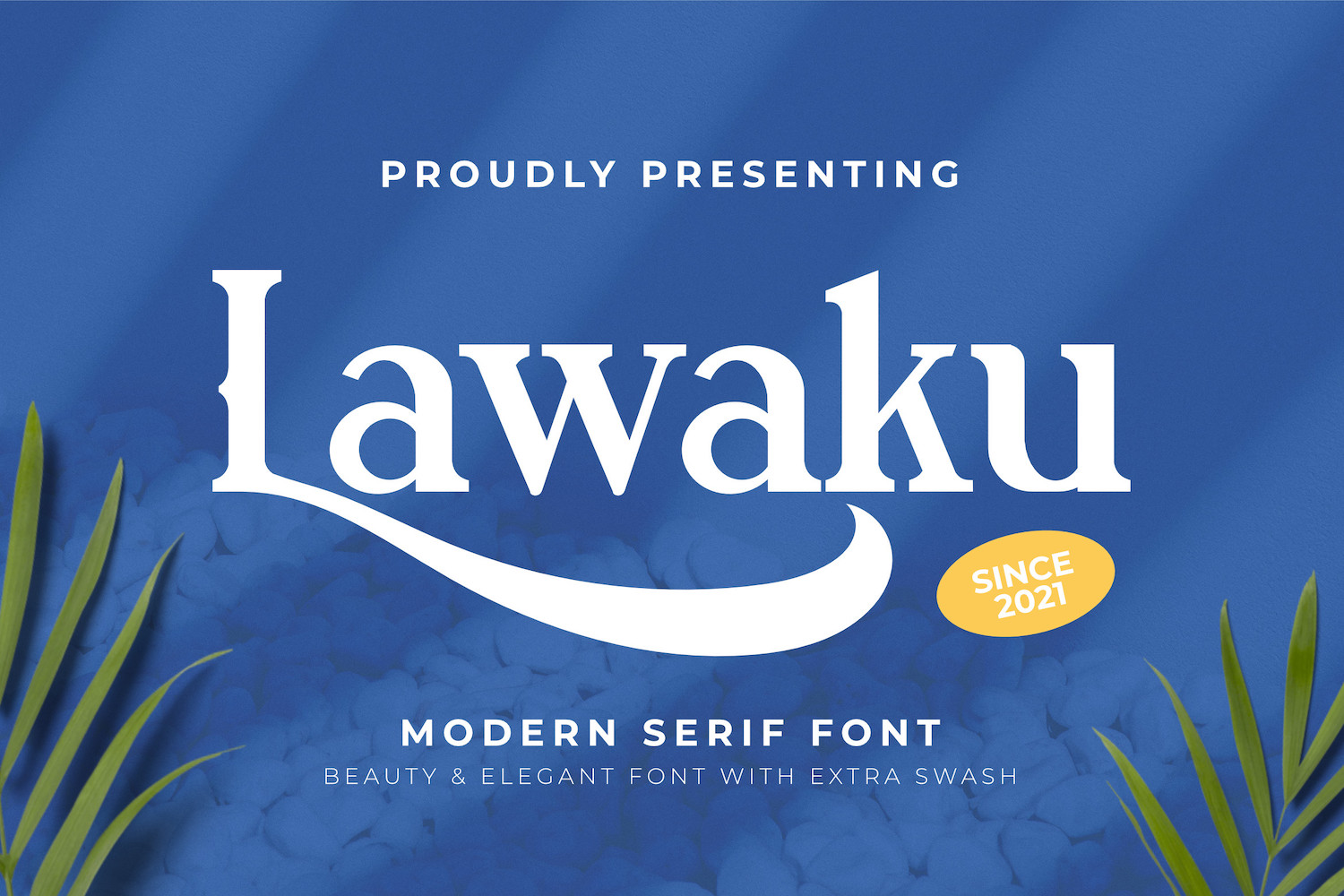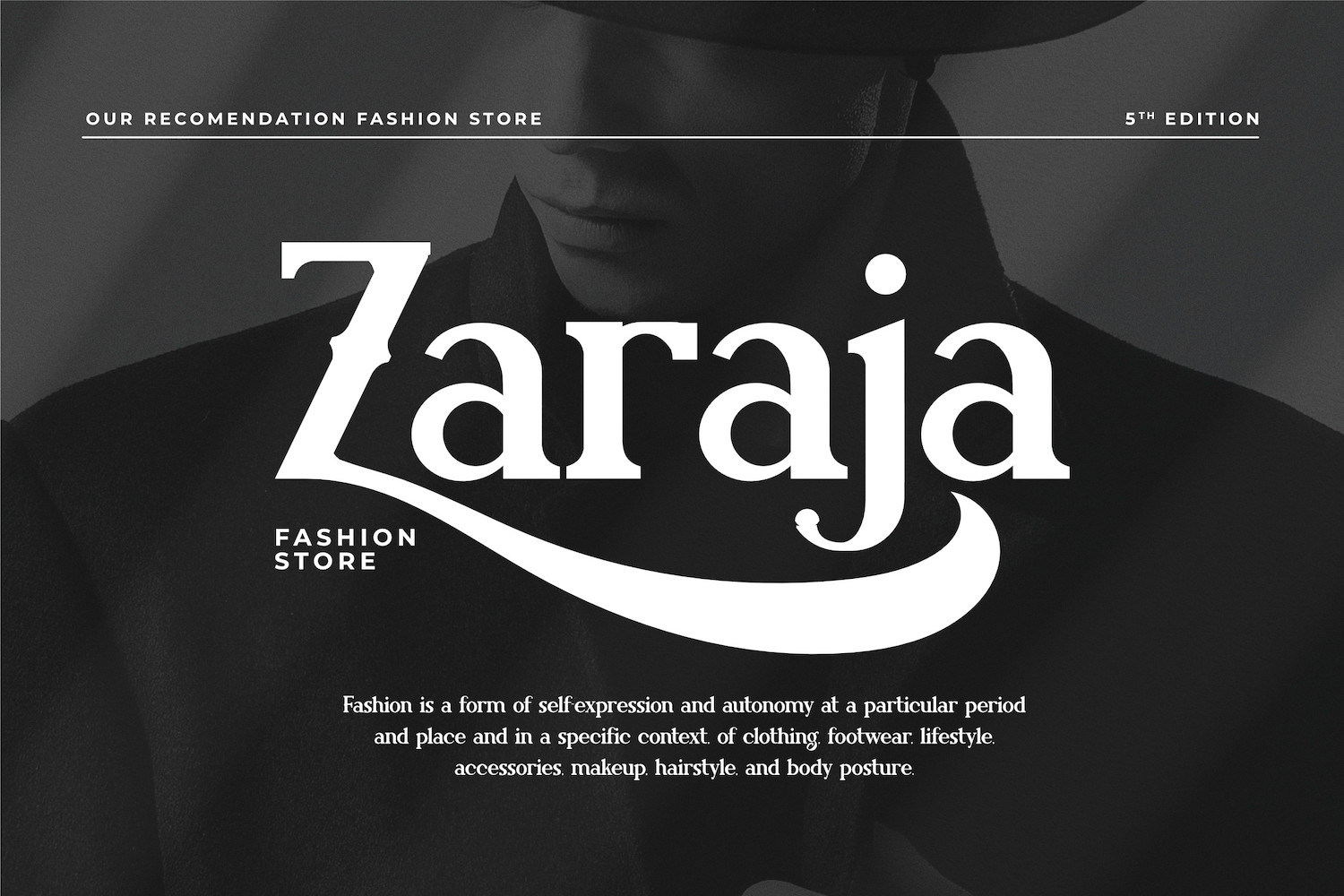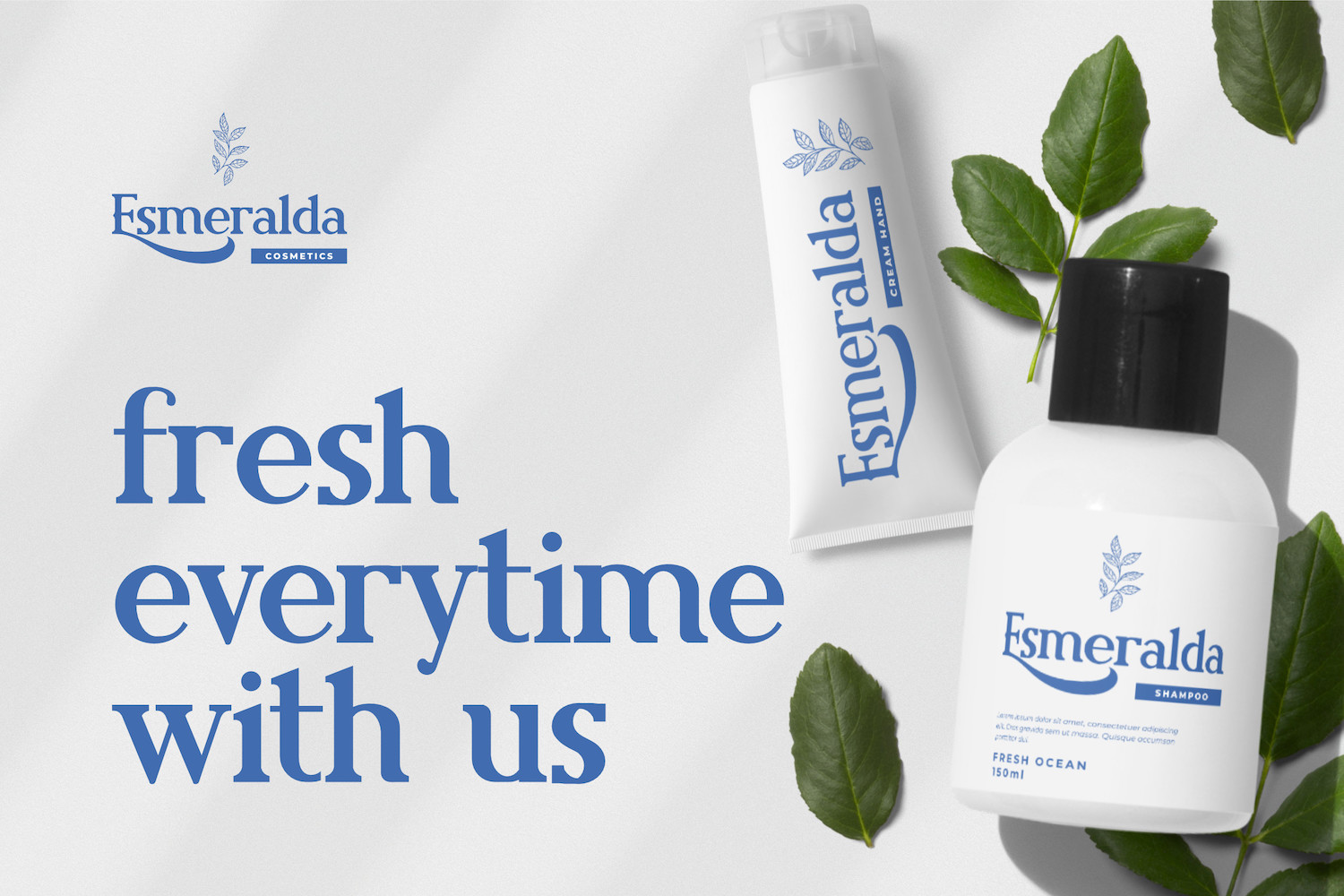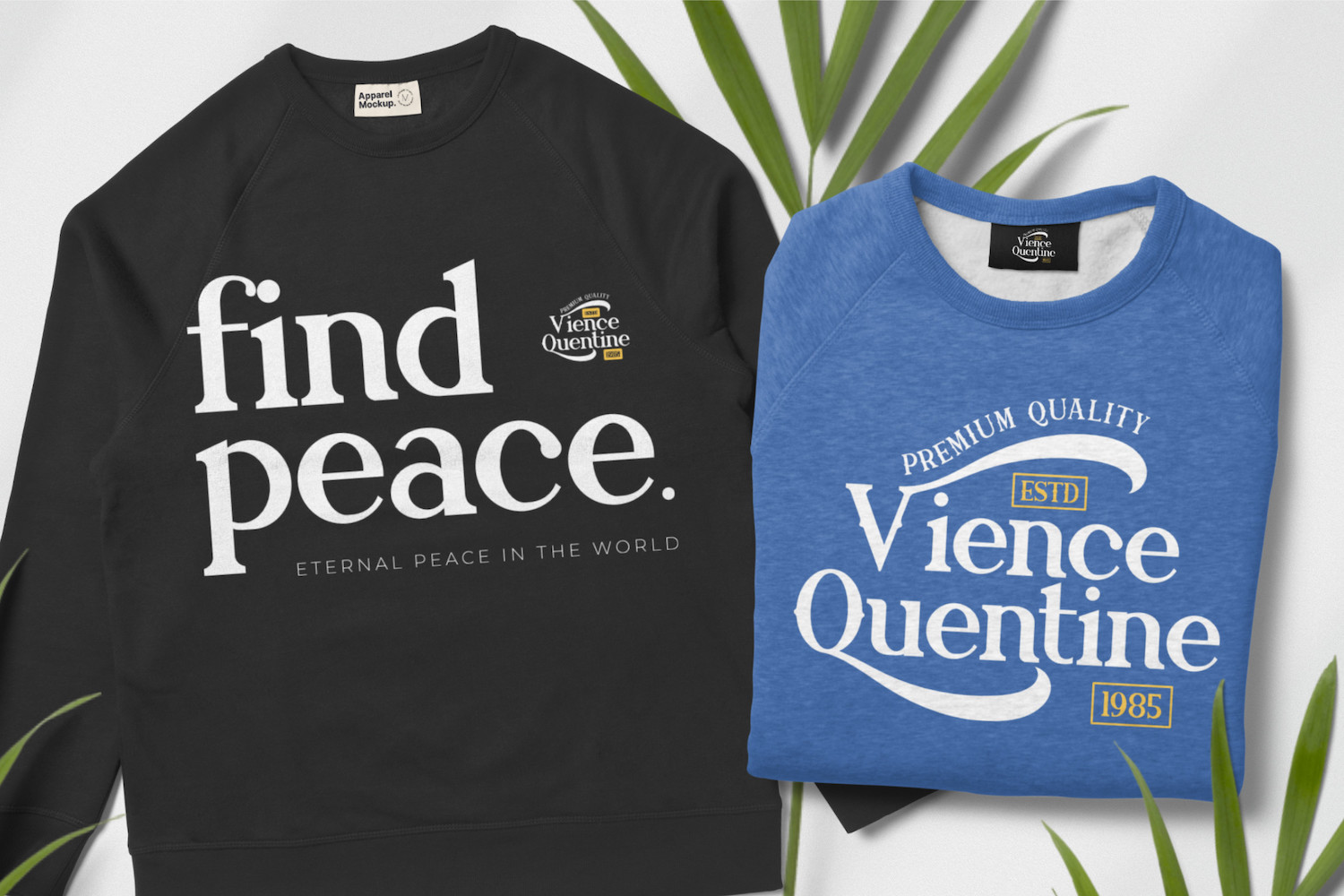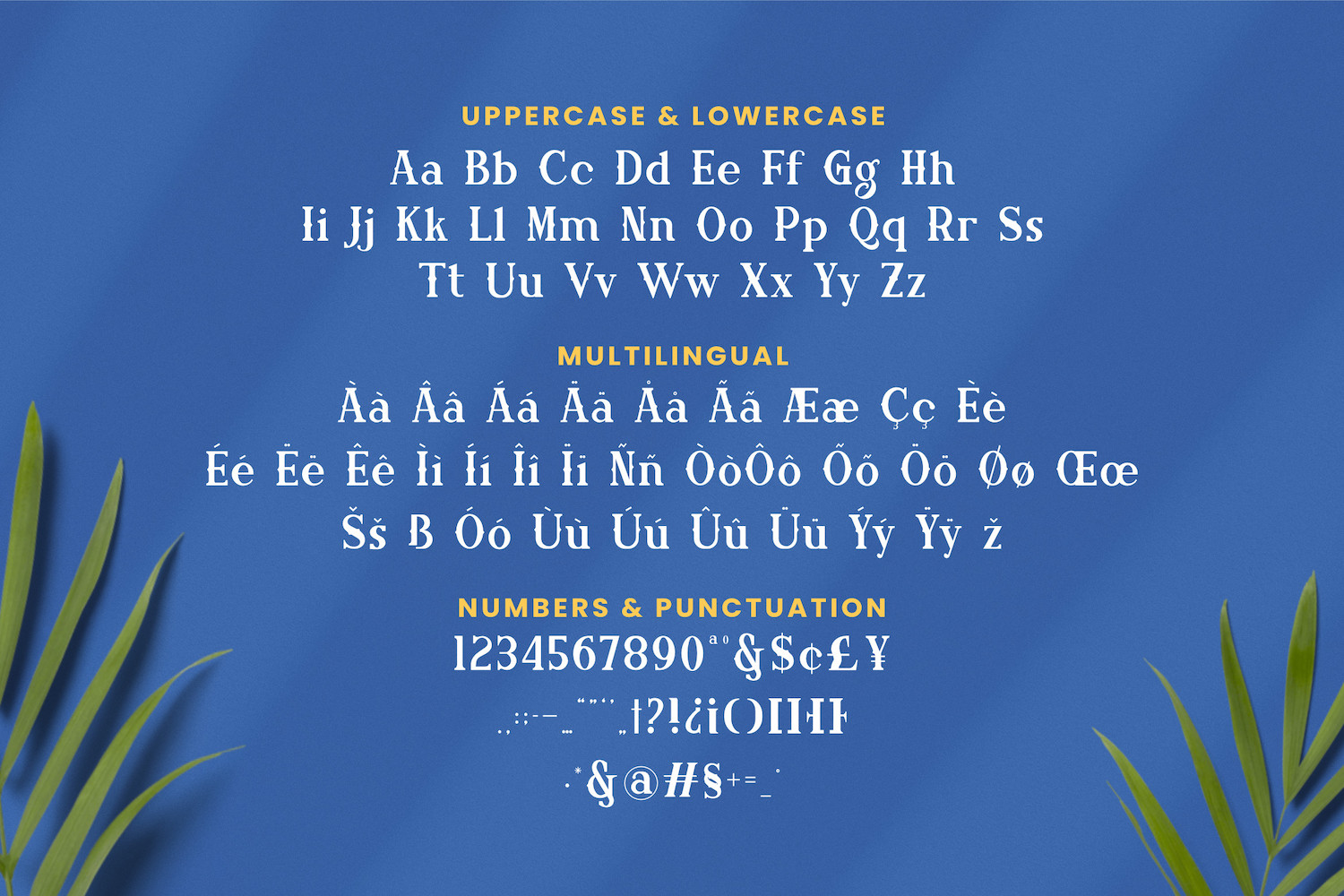
Lawaku
Glyphs for Lawaku
Lawaku is a modern serif font that blends classic elegance with a playful twist. Its signature swash on the “L” and selected lowercase characters gives it a stylish personality, perfect for high-end branding, editorial designs, packaging, and fashion promotions. With a sharp serif detail and balanced proportions, Lawaku offers both sophistication and versatility in one typeface.
This font comes with uppercase and lowercase letters, multilingual support, punctuation, and numbers, making it suitable for various languages and design needs. Whether you are creating logos, cosmetic labels, social media templates, or merchandise, Lawaku brings a refined yet approachable feel to your project.